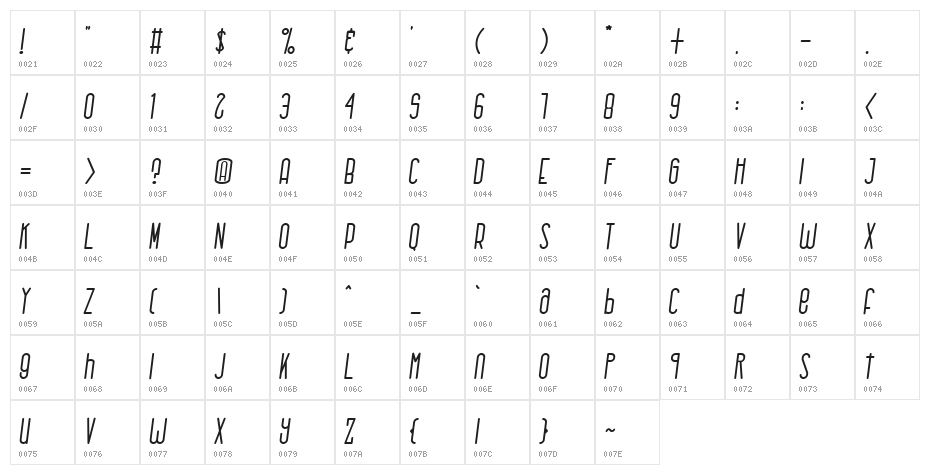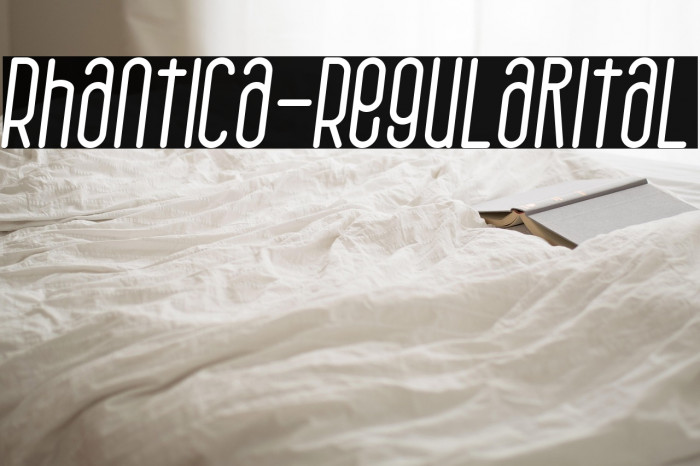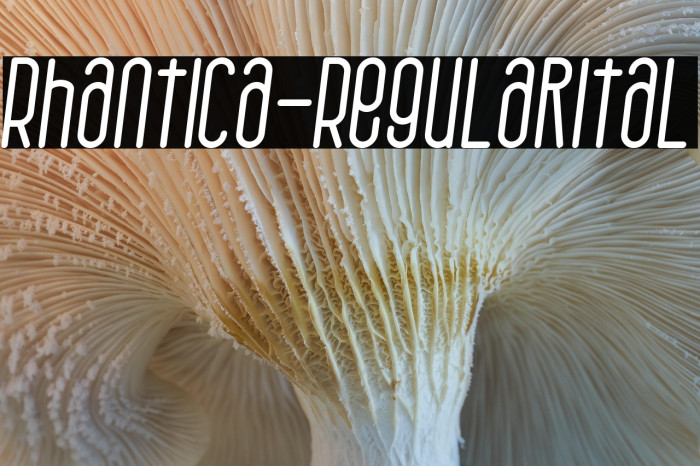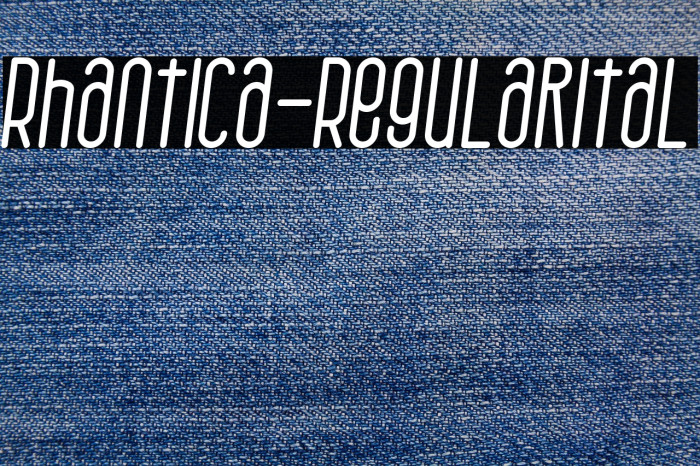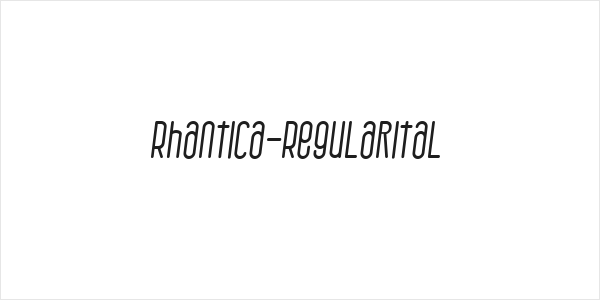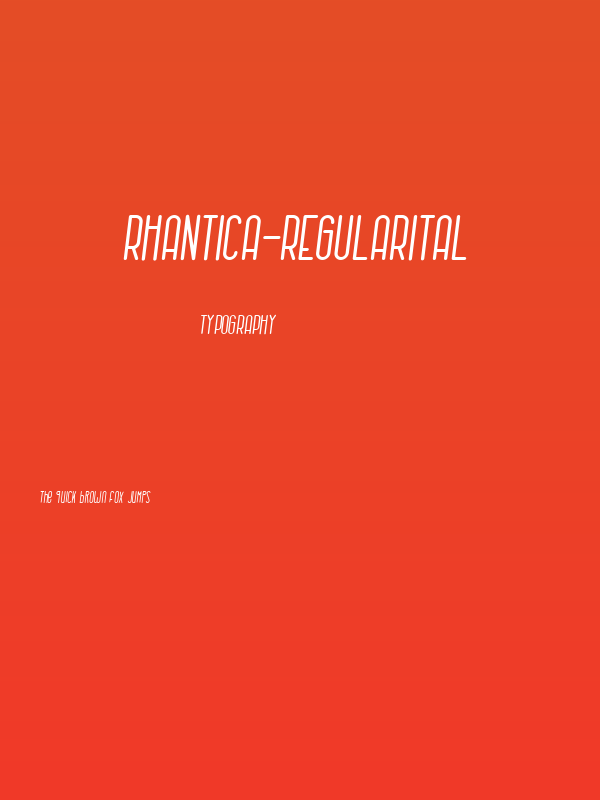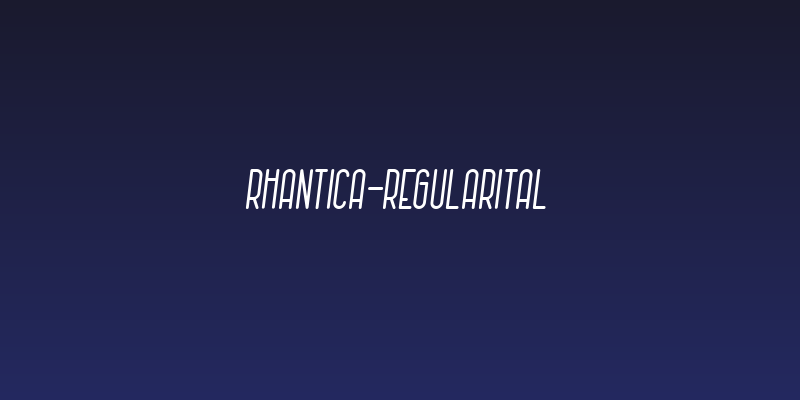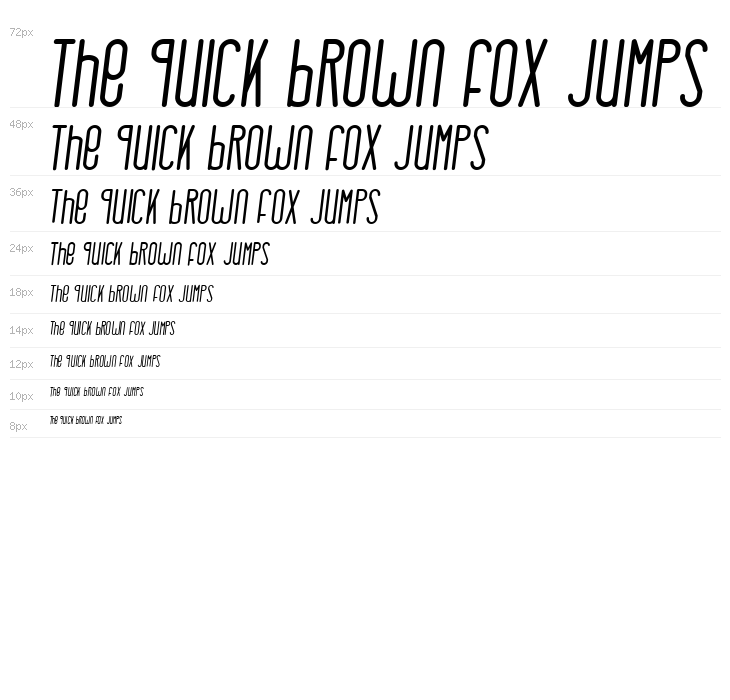
Rhantica-RegularItal Font
Rhantica-RegularItal Description
This font features a sleek and modern design with a slight italic slant, giving it a dynamic and energetic appearance. The characters are elongated with a consistent stroke width, creating a uniform and streamlined look. The uppercase and lowercase letters maintain a cohesive style, while the numerals and special characters complement the overall aesthetic. The font's clean lines and subtle curves make it versatile for various design applications, offering a contemporary feel that is both stylish and functional.
| Proposed Projects | Ideal for branding, advertising, and editorial design projects that require a modern and dynamic touch. |